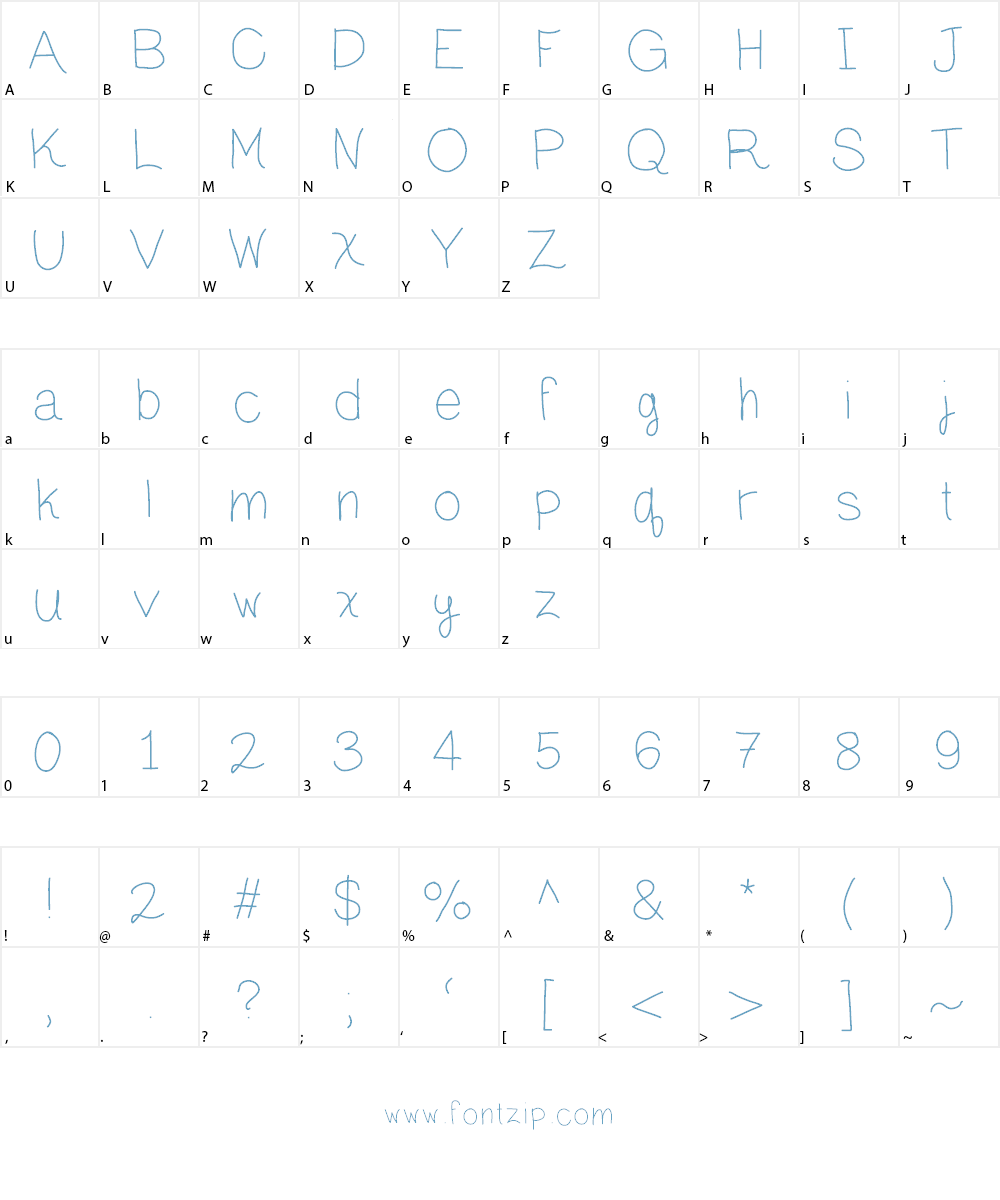
The second of five fonts in the collection SK Burning Red, SK Sunset focuses on simple beauty. SK Sunset is what I call a pressurized font, meaning I drew it using more pressure to perfect the curves. It's cool.